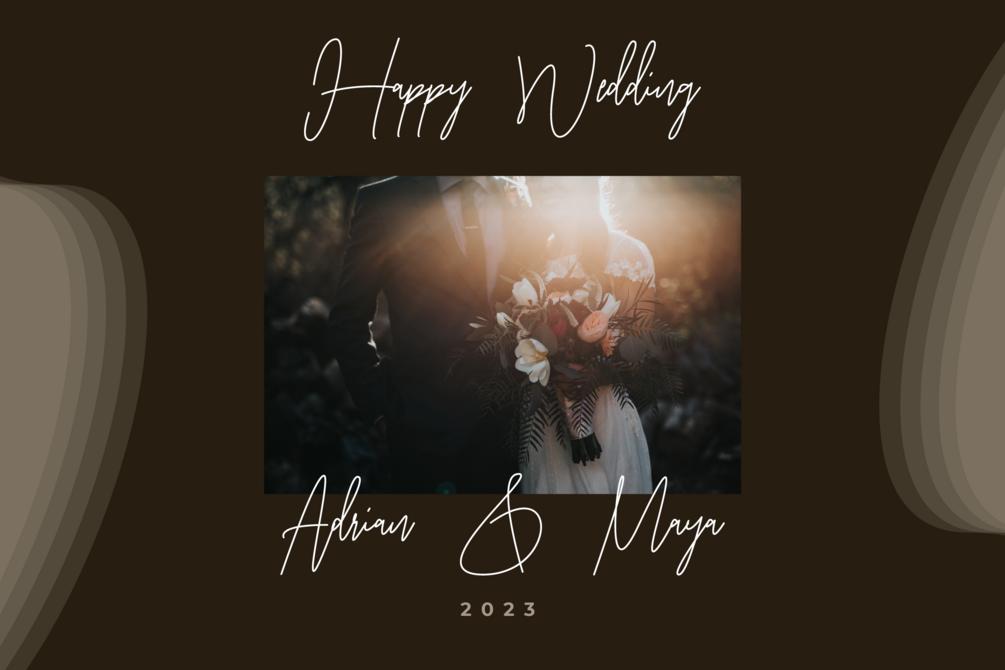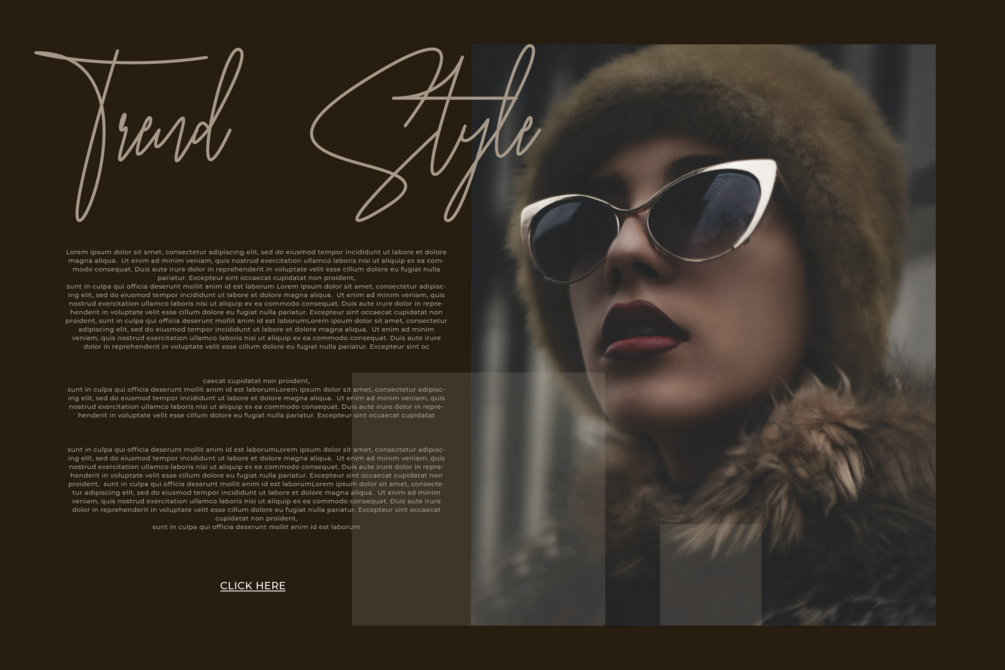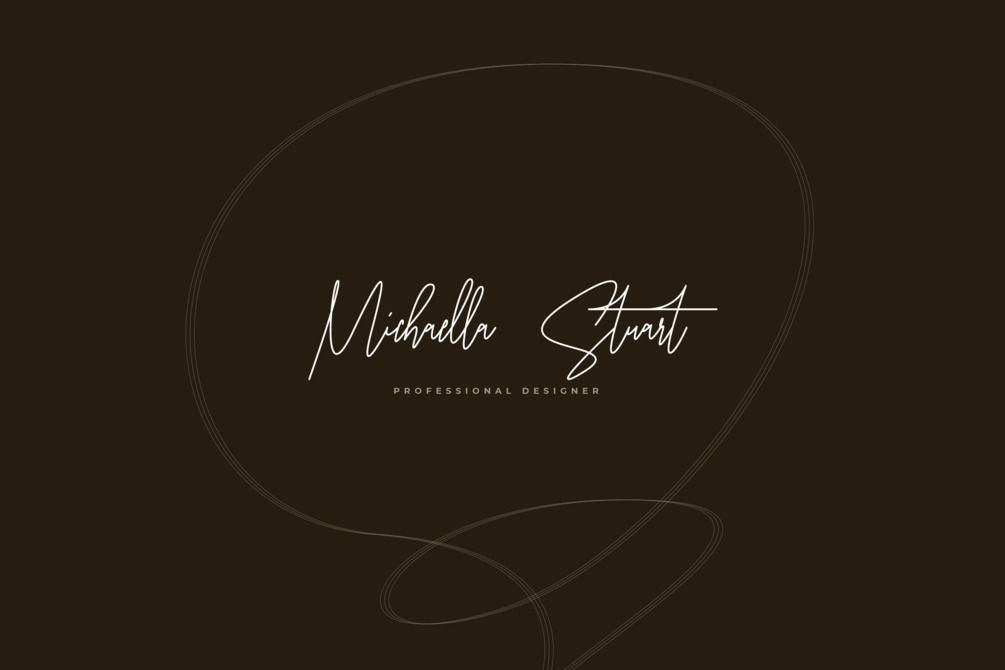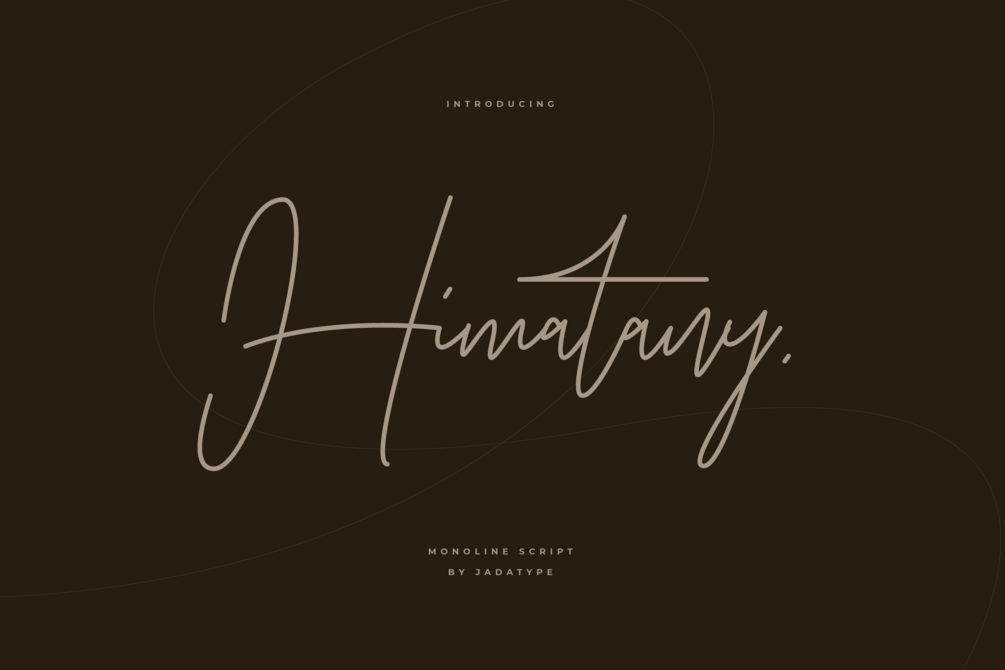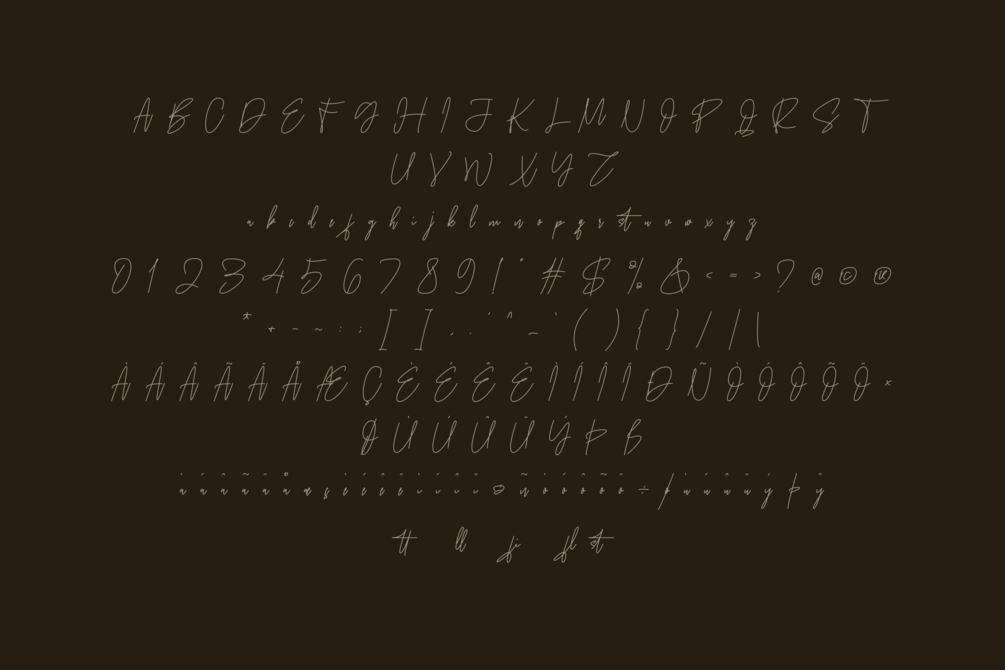
Himatany Font
Himatany is a script font that comes with a monoline style. suitable for crafting, branding, social media, and so on. contains standard English letters, numbers, punctuation, and several accents that support multilingualism.